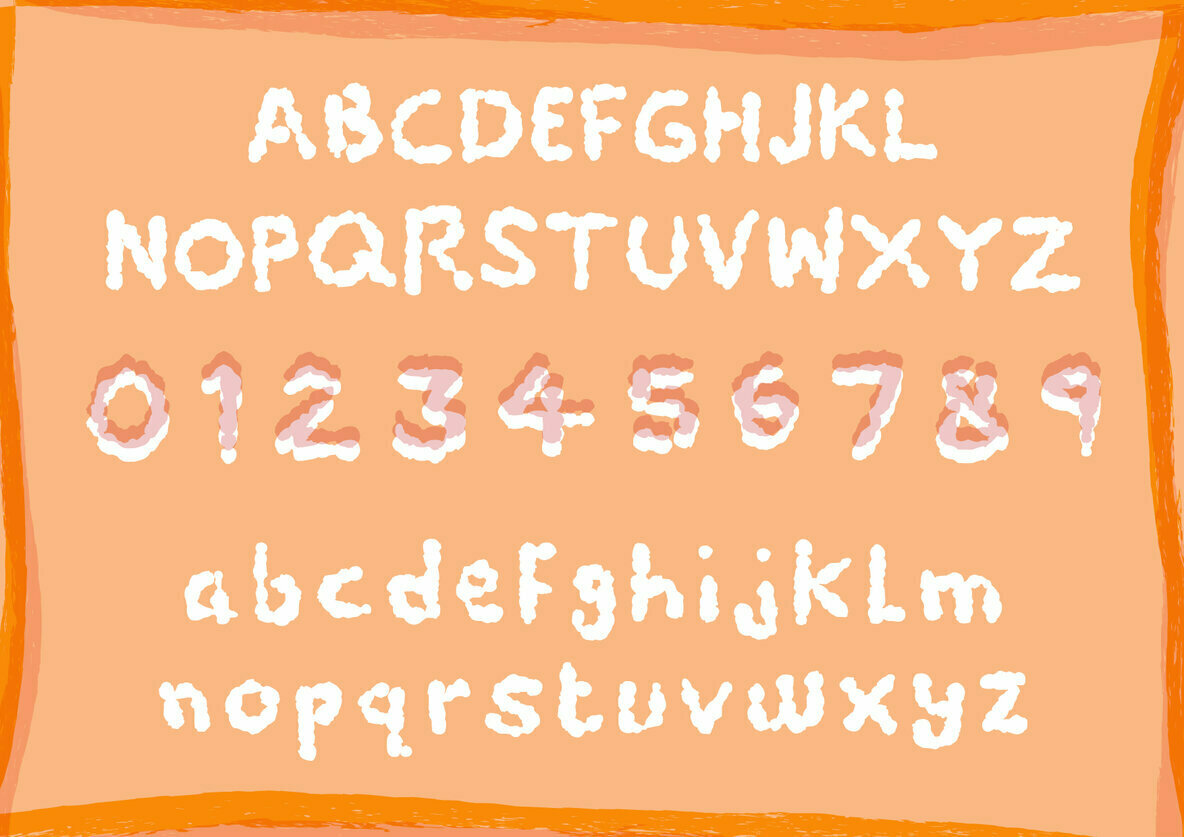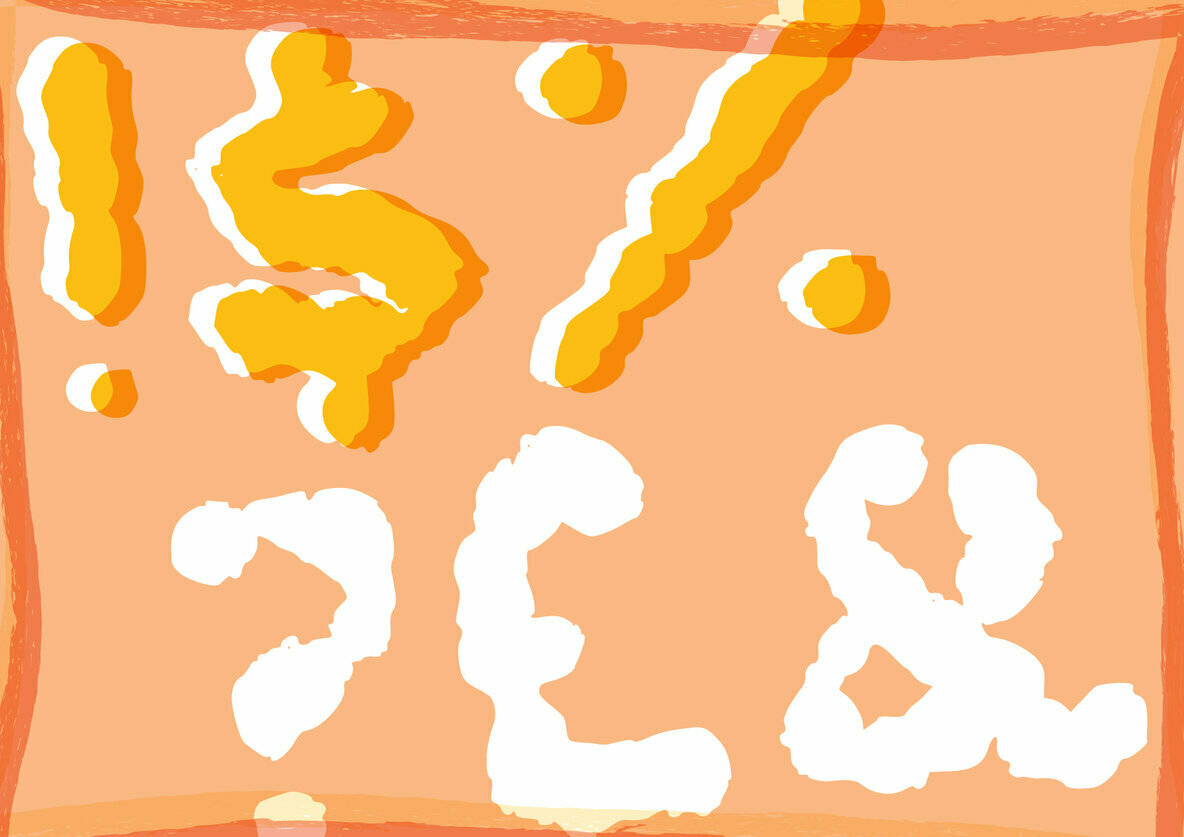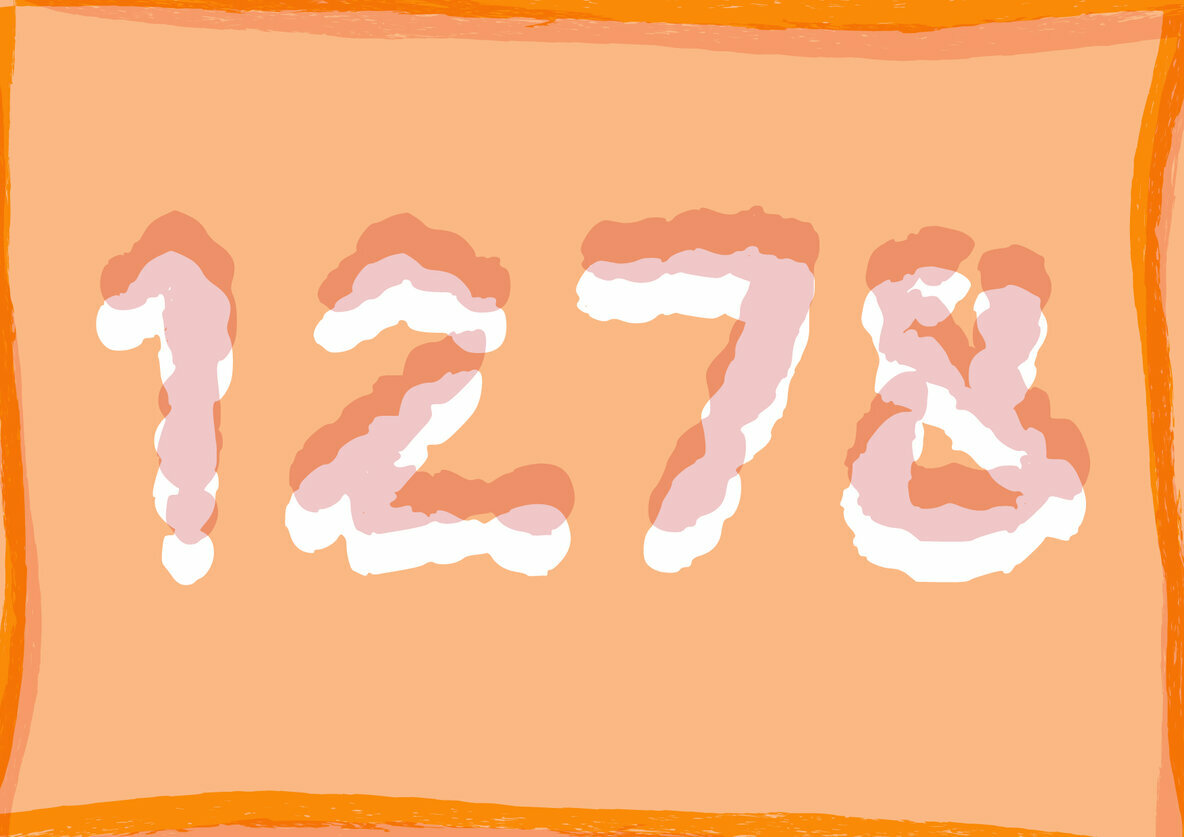
Burnt Paper Font
Burnt Paper
Burnt Paper is a funny display font with a unique look! Clean and a little bit quirky, this font is the perfect fit for all of your logos, branding, social media, and crafty DIY projects.